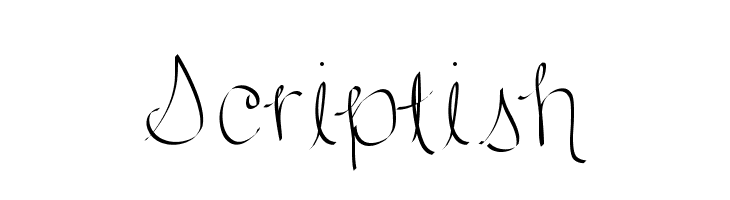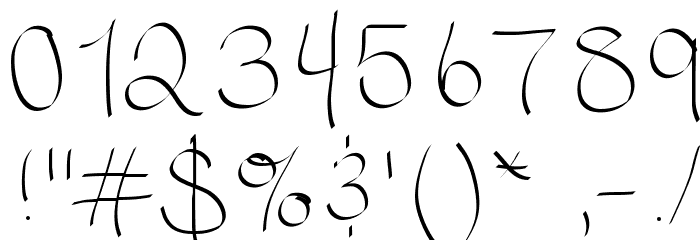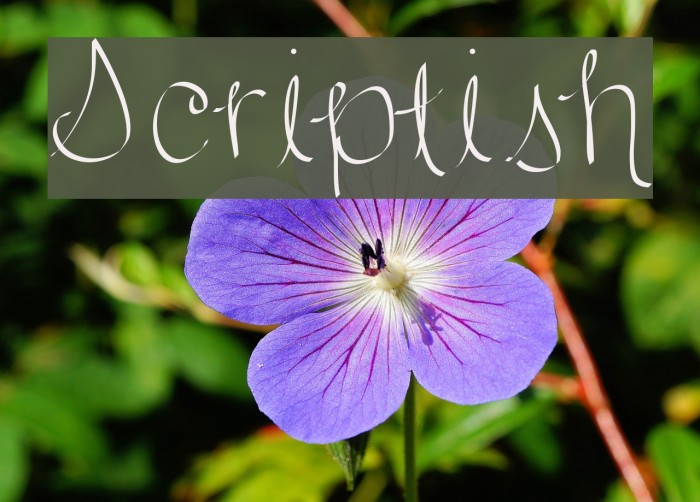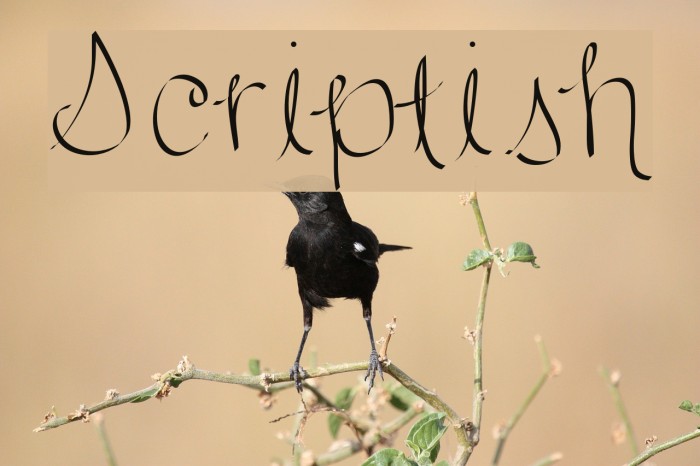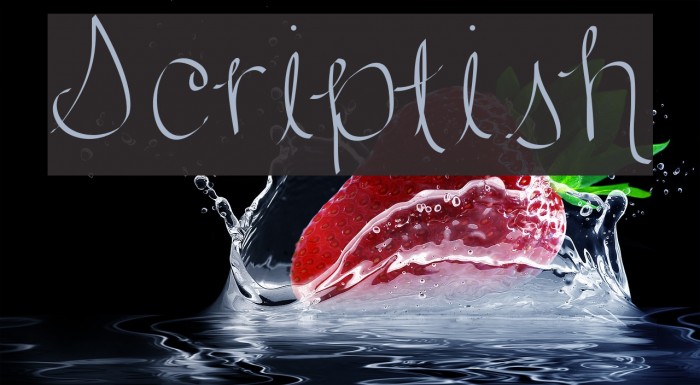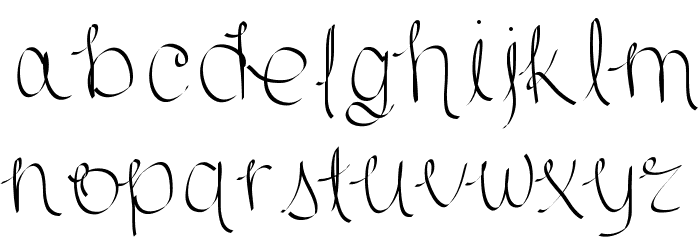
Scriptish Font
Scriptish Description
This font features a whimsical and elegant script style, characterized by its flowing, cursive letterforms. The strokes are smooth and exhibit a playful yet sophisticated flair, with each character seamlessly connecting to the next. The uppercase letters are bold and prominent, while the lowercase letters maintain a delicate and airy appearance. The numerals are consistent with the overall script style, offering a harmonious blend with the alphabet. Special characters are thoughtfully designed, maintaining the font's cohesive aesthetic. This font is ideal for projects that require a touch of elegance and creativity.
A whimsical and elegant script font with flowing, cursive letterforms from Handwritten fonts.
- Proposed Projects: Perfect for wedding invitations, greeting cards, branding, and elegant packaging designs.
- Use Case: Logos, Invitations, Decorative text